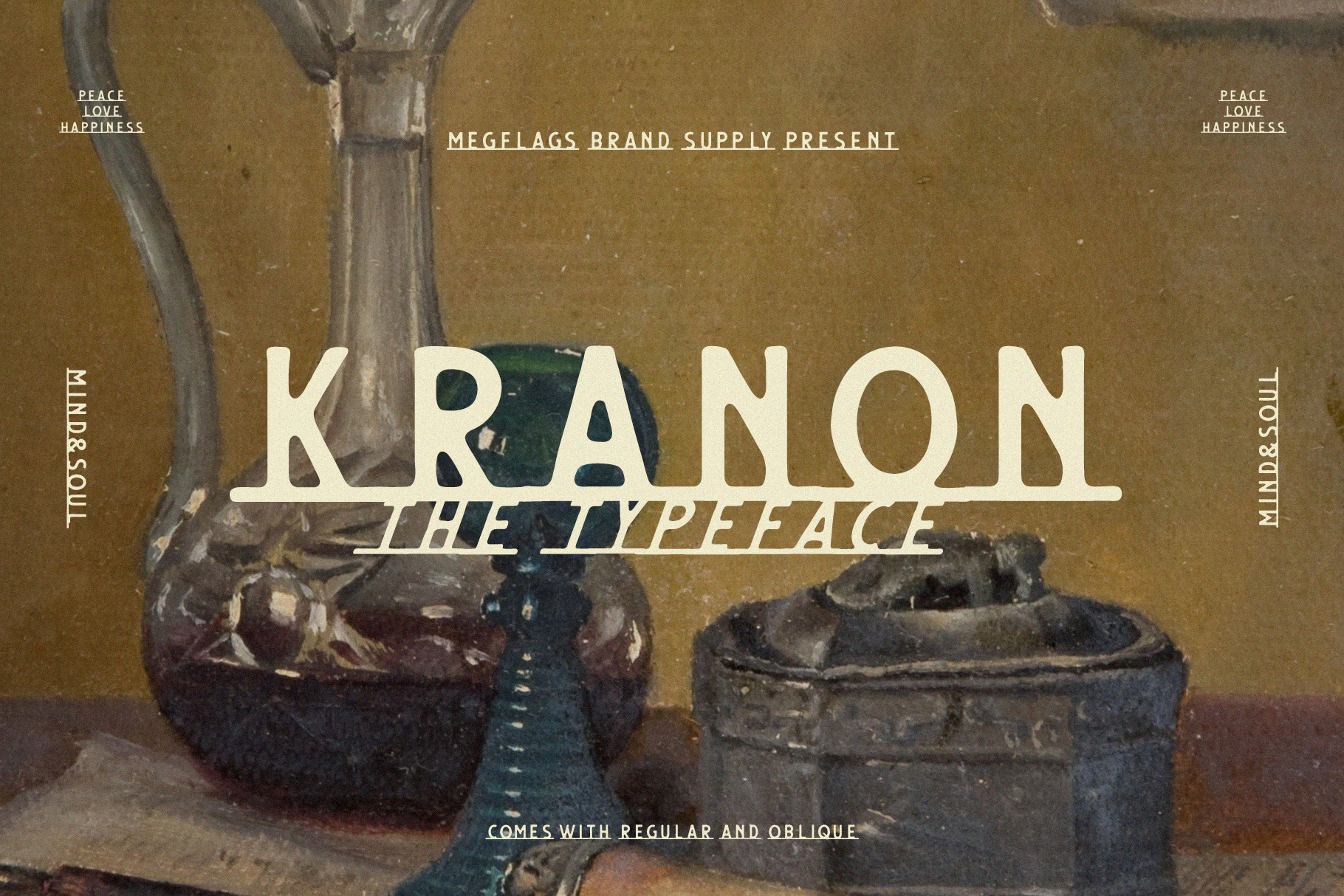
Kranon Typeface
Kranon typeface is a typeface inspired by vintage metal sign. It's very good for label, logo, merchandise, or sign design. Comes with two styles regular and oblique. Enjoy! Thanks!